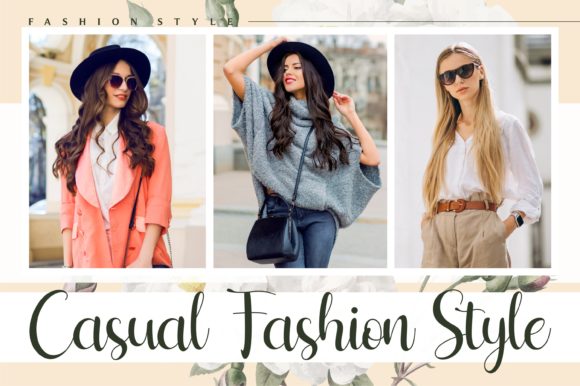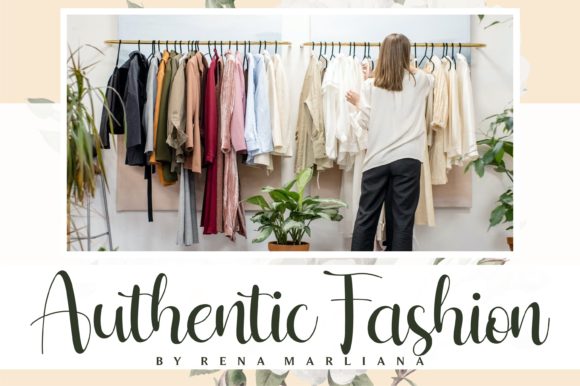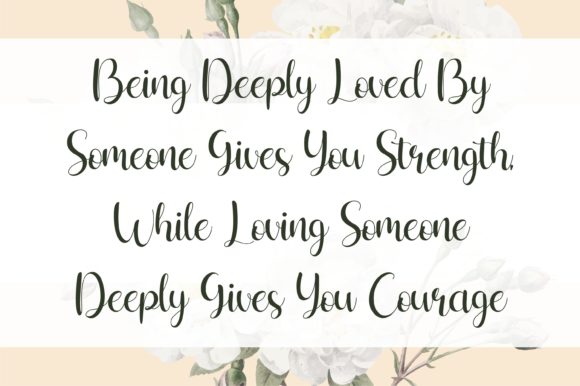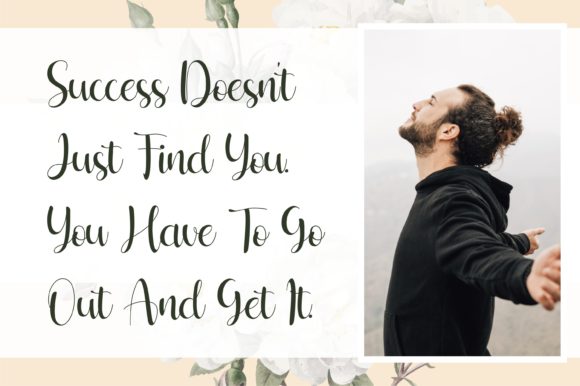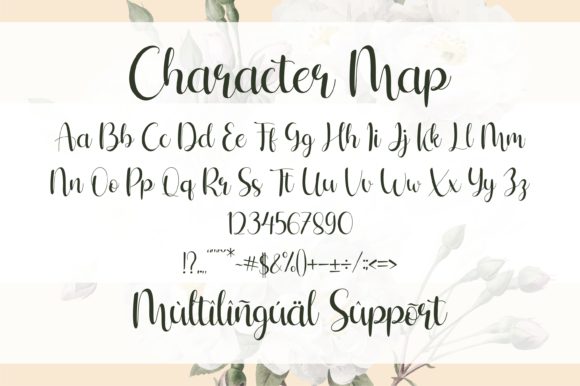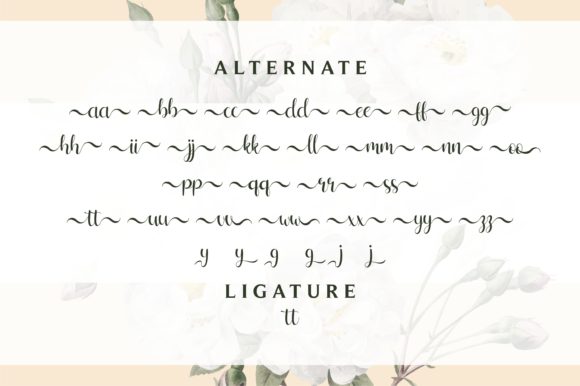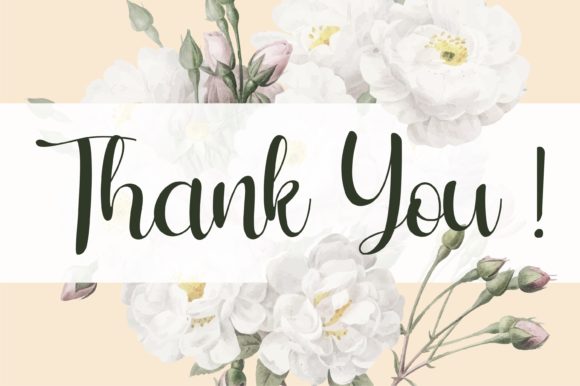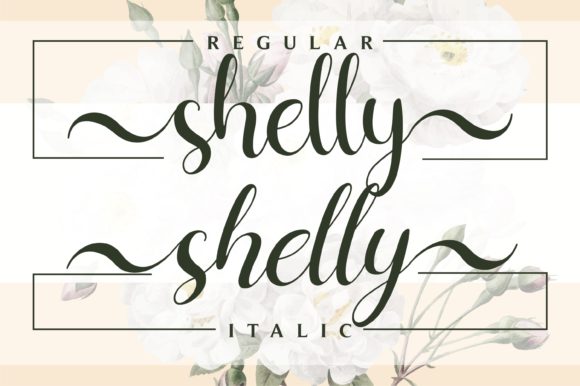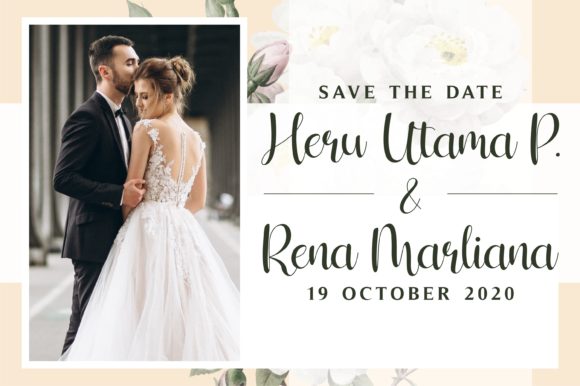
Shelly Font
About Shelly Font
Shelly is a beautiful, flowing and romantic handwritten font. It maintains its classy calligraphic influences while feeling contemporary and fresh. This font is PUA encoded which means you can access all of the glyphs and swashes with ease!